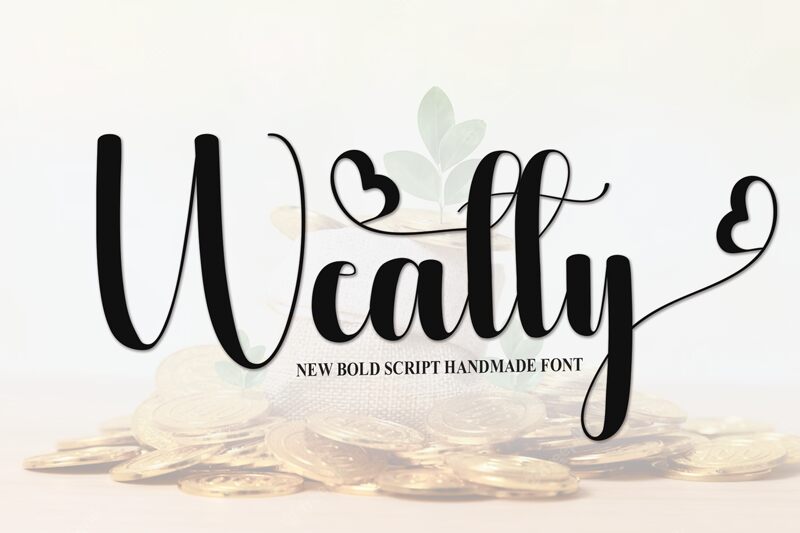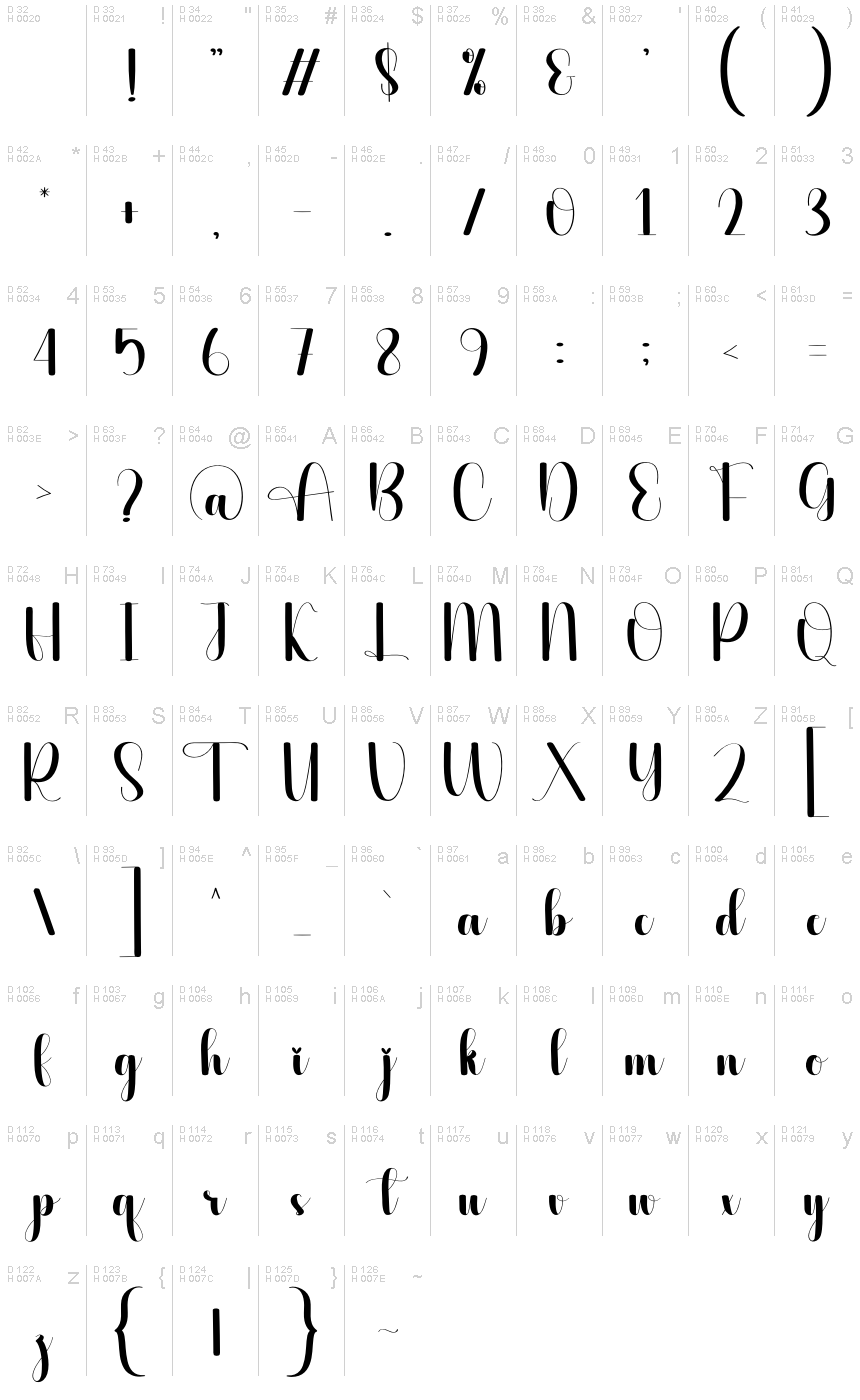
Wealty
Wealty font by Scratchones is a stunning calligraphy typeface that exudes elegance and sophistication. With its graceful curves and flowing strokes, this font captures the essence of traditional handwriting while adding a modern twist.
The dramatic and bold style of Wealty makes it perfect for high-end branding, wedding invitations, and luxury merchandise designs. Its unique blend of fluidity and precision offers versatility, making it an ideal choice for designers seeking to add a touch of class to their projects.